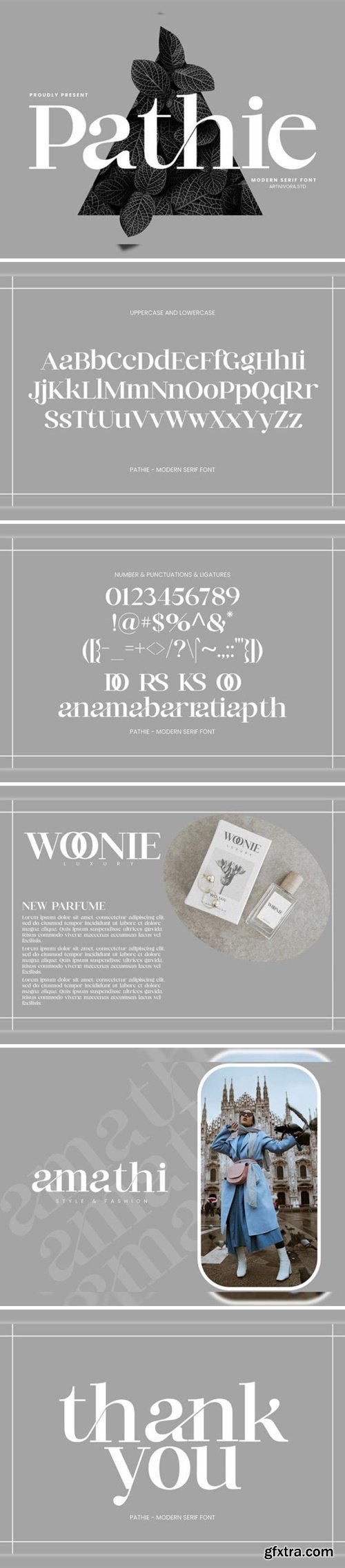
Pathie 字体
Pathie, a Modern Serif Font, brings a touch of contemporary elegance to your projects. With clean lines and a stylish design, it adds a modern flair to any text. Perfect for a sleek and sophisticated look in your documents, Pathie is versatile and easy on the eyes. Elevate your typography with this simple yet refined font choice for a polished and modern appearance. This font is PUA encoded which means you can access all of the amazing glyphs and ligatures with ease!